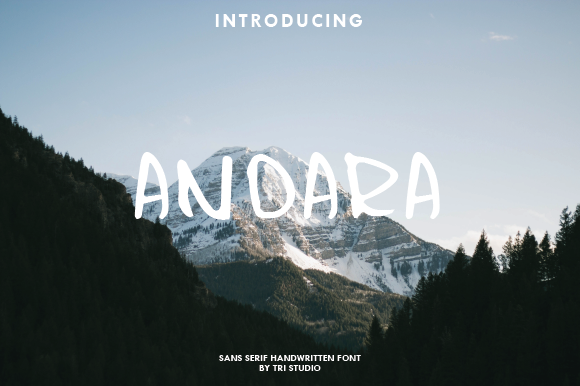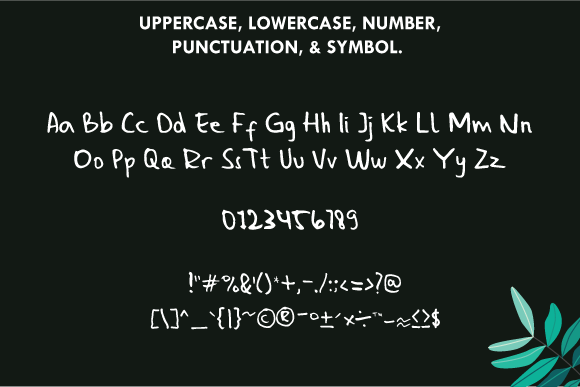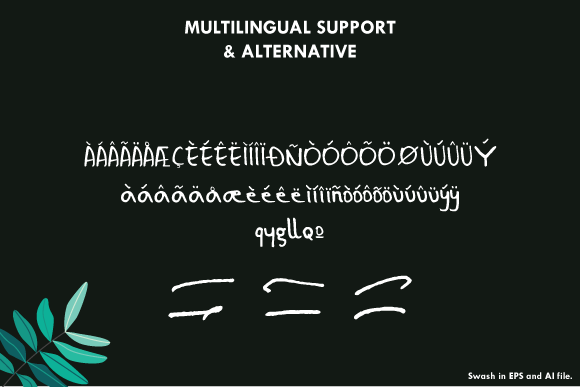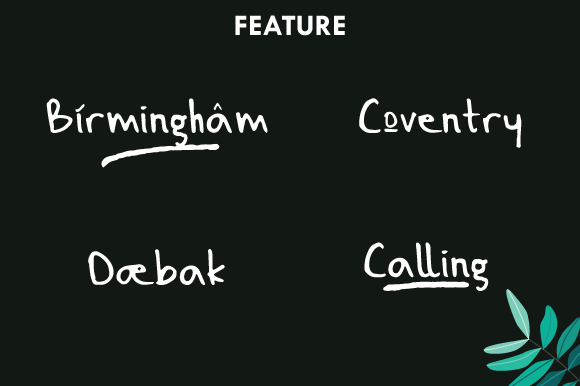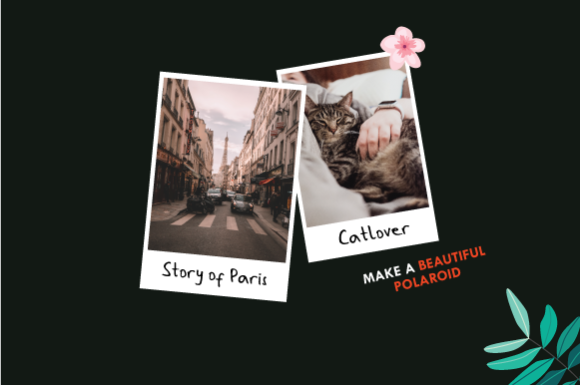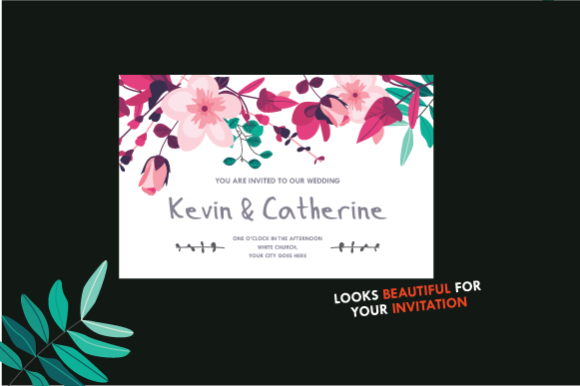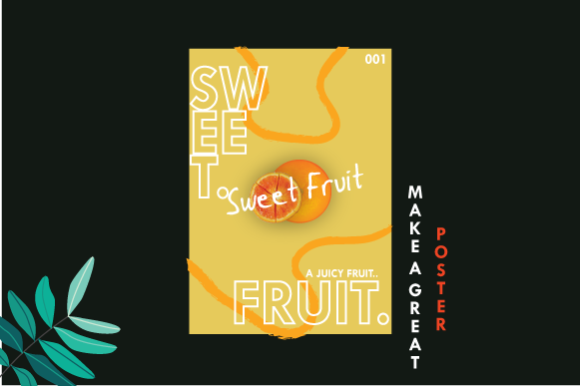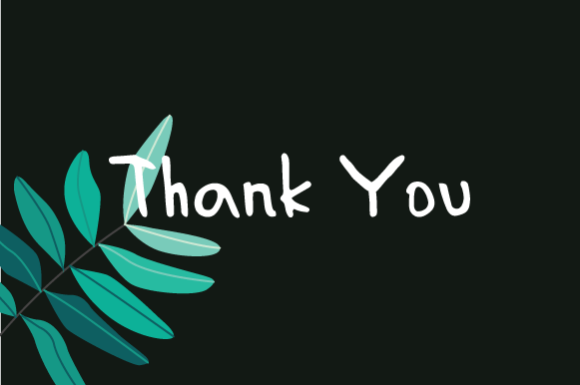
HomeScript FontsAndara Font Script Fonts Andara Font FacebookXPinterestWhatsApp Andara Font Poster 2 Andara Font Poster 3 Andara Font Poster 4 Andara Font Poster 5 Andara Font Poster 6 Andara Font Poster 7 Andara Font Poster 8 About Andara Font Andara is a simple handwritten font, with a modern vibe. Use it to turn any design project into an eye catcher! DOWNLOAD ON CREATIVE FABRICAThis font is sold and delivered by Creative Fabrica. Font Canyon may earn a commission if you buy through this link. People also explored Femto Font Crumble Font Hestion Font Talking to You Font Azalea Font Beautyous Font Xanthousy Font Daimor Font Lylia Font 399 0 TagsAndara Font Previous articleCramella Duo FontNext articleOllson Font LEAVE A REPLY Cancel reply Comment: Please enter your comment! Name:* Please enter your name here Email:* You have entered an incorrect email address! Please enter your email address here Website: Save my name, email, and website in this browser for the next time I comment. Personal Use Free Velasco Personal Use Free Read more about this font Dr.Marz Personal Use Free Read more about this font Short Message Personal Use Free Read more about this font Aragon Personal Use Free Read more about this font BLOG How to Cut Any Font on Cricut: Convert a Font to SVG (Free) Turn any font into a clean SVG so it cuts crisp on Cricut - a quick 3-step workflow using a free font-to-SVG tool. Free Fonts Risk: Why Free Fonts Can Be Dangerous for Designers Elegant Wedding Invitation Fonts – Handwritten & Script Fonts Fonts That Capture the Spirit of New York City